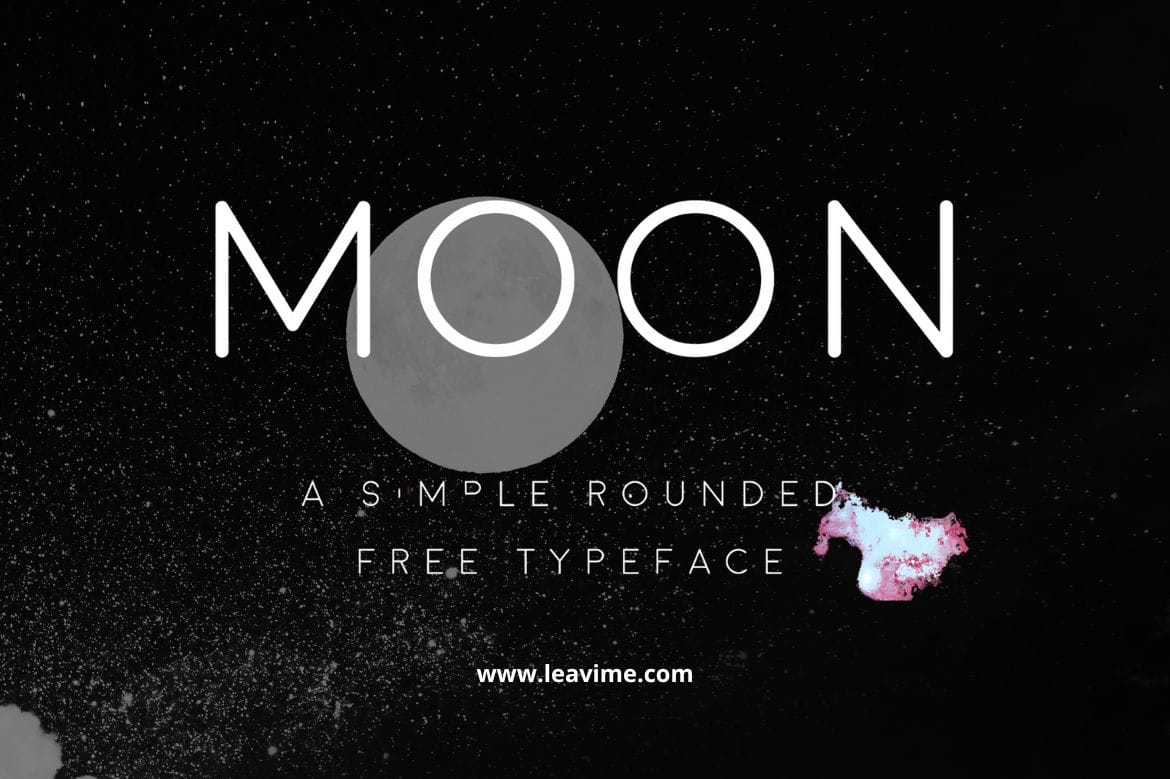
Step into the world of sleek, modern design with Moon Typeface—a stunning sans serif font crafted by the talented Jack Harvatt. With its minimalist elegance and urban charm, Moon Typeface boasts over 240 meticulously designed characters, making it the perfect choice for eye-catching logos, striking titles, and versatile design projects. Its clean lines and timeless aesthetic ensure it pairs effortlessly with a wide range of fonts, elevating any creative endeavor.
Discover the perfect blend of simplicity and sophistication—Moon Typeface is here to transform your designs.
Moon Typeface